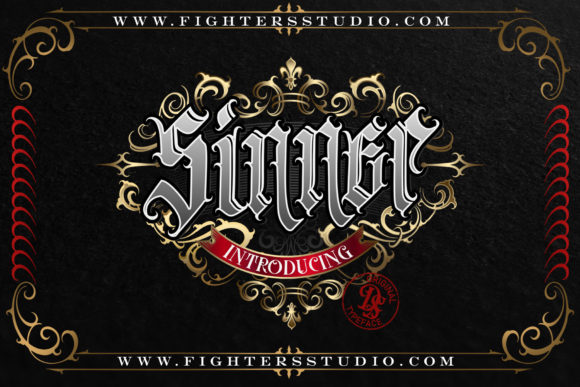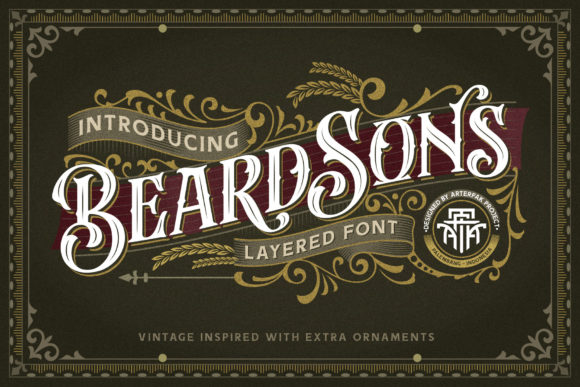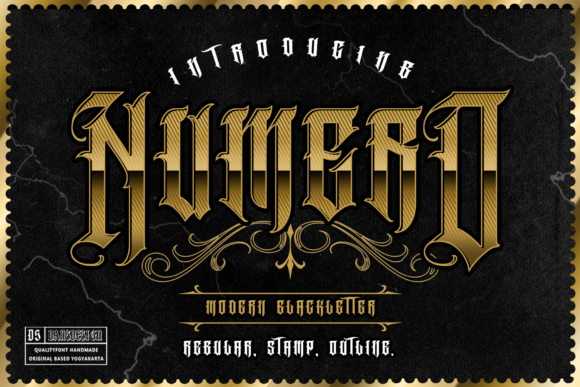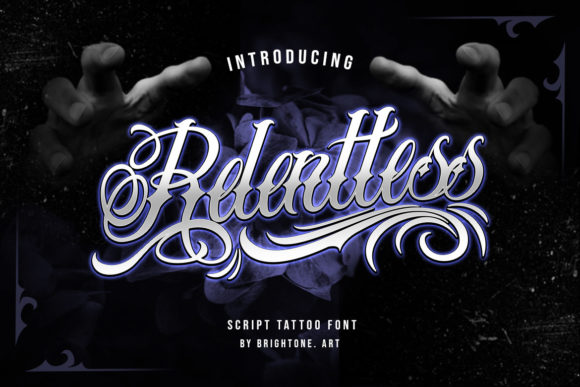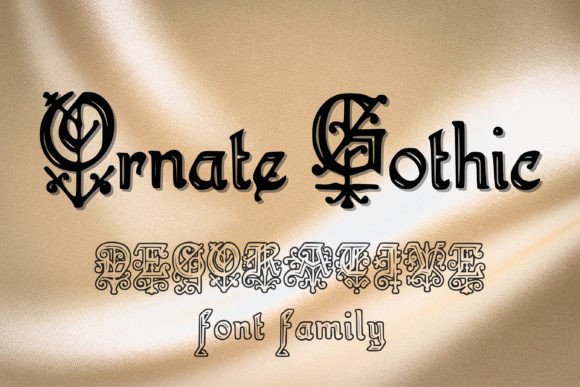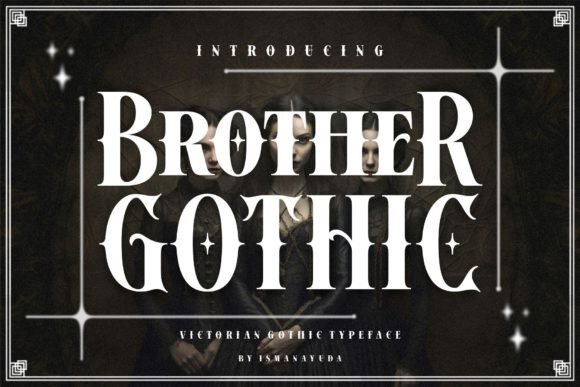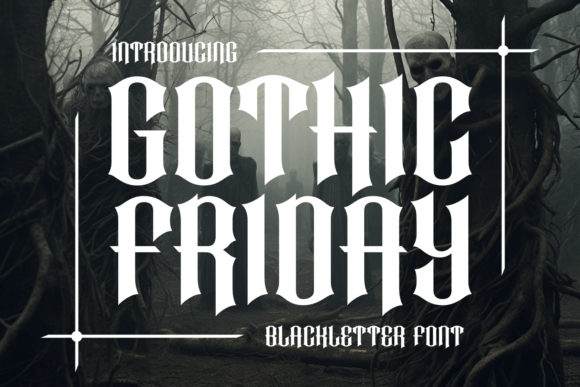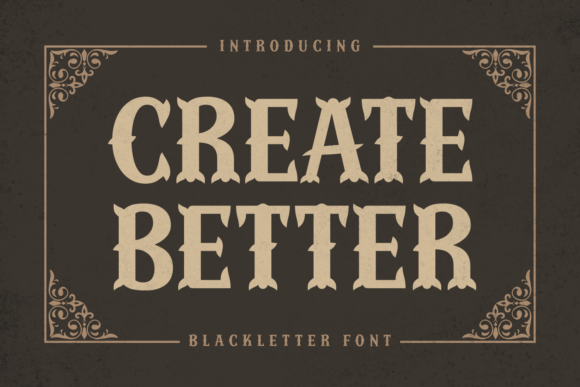
20 Best Gothic Fonts for Spooky and Mysterious Designs
Gothic fonts bring instant drama, mystery, history, and character to a design. From traditional blackletter and medieval lettering to bold vintage styles, these Gothic fonts are worth testing for posters, branding, apparel, invitations, album artwork, book covers, and Halloween projects.
Gothic typography is especially effective when a design needs atmosphere. Heavy strokes, dramatic capitals, sharp terminals, ornamental details, and historical blackletter influences can make even a short word feel distinctive.
01 · Vintage Blackletter
Beardsons
Beardsons is a distinctive blackletter typeface with a strong vintage character. Its bold construction makes it particularly useful when the lettering needs to become the main visual element of the design.
02 · Spooky Blackletter
Nightmare Gothic
Nightmare Gothic is a dramatic blackletter typeface designed around a dark and mysterious mood. Its Gothic structure makes it especially suitable for horror, Halloween, fantasy, and atmospheric designs.
03 · Victorian Gothic
Brother Gothic
Brother Gothic combines a Victorian-inspired structure with a tougher, biker-influenced Gothic feel. It is a versatile display style for traditional and contemporary graphic work.
04 · Detailed Gothic
Numero
Numero is an assertive Gothic-style blackletter with detailed letterforms. Its visual weight makes it suitable for attention-grabbing headlines and statement typography.
05 · Dark Display
Sinner
Sinner leans into the darker side of Gothic display typography. Its dramatic appearance makes it a natural fit for rebellious, mysterious, and horror-inspired projects.
06 · Bold Gothic
Relentless
Relentless is designed for projects where typography needs to make an immediate impression. Its heavy Gothic personality works well in compact headlines and statement lettering.
07 · Classic Blackletter
Midnight Blackletter
Midnight Blackletter delivers the atmosphere of traditional Gothic lettering while remaining useful for modern display work.
08 · Ornamental Gothic
Ornate Gothic
Ornate Gothic is aimed at designers who want more decorative options from their blackletter typography. The family includes Regular, Stencil, and Outline treatments.
09 · Decorative Display
Roslenk
Roslenk brings a decorative blackletter character to display typography. It works particularly well when the lettering needs to feel like a finished graphic element.
10 · Free Gothic Font
Gothic Friday
Gothic Friday is an accessible option for designers who want a Gothic aesthetic without adding another paid font to the project budget.
11 · Textured Gothic
Black Jaguar Font
This typeface has a tactile character, with letterforms developed through a physical process before being digitized. That gives the typography a handcrafted quality.
12 · Fantasy Gothic
Gothic Fiction
Gothic Fiction is suited to designs that need a strong storytelling quality, including fantasy titles, atmospheric covers, mysterious posters, and dramatic branding.
13 · Modern Gothic
Nostra
Nostra is useful when you want Gothic influence without making the entire design feel historically themed. Its display-oriented personality works well in contemporary compositions.
14 · Western Gothic
Create Better
Create Better combines Gothic influence with a Western-inspired visual direction. This makes it an unusual option for designs between old-world typography and frontier aesthetics.
15 · Classic Goth
Black Letter Goth
Black Letter Goth takes the traditional blackletter direction and places it inside a dark contemporary aesthetic. It is a straightforward choice when the project needs unmistakably Gothic lettering.
16 · Decorative Gothic
Moreza
Moreza adds another decorative option to the Gothic shortlist. It works best when the type itself is expected to carry much of the visual identity of the design.
17 · Medieval
Medieval Blackletter
Medieval Blackletter is a natural fit for projects that intentionally lean into historical, medieval, fantasy, or old-world visual language.
18 · Outline Gothic
Avestrava Outermost
Avestrava Outermost takes a more experimental route with an outline-oriented blackletter treatment. It is interesting when solid blackletter feels too heavy for the composition.
19 · Minimal Gothic
Minimal Blackletter
Minimal Blackletter is worth testing when you want the recognizable character of blackletter without overwhelming a relatively clean composition.
20 · Traditional Gothic
Blackletter
Blackletter rounds out the list with a straightforward traditional Gothic direction. It is a useful starting point for designers who want to experiment with the blackletter genre.
How to Choose the Right Gothic Font
Not every Gothic font creates the same mood. A traditional blackletter can feel historical and ceremonial, while a rough display font can feel rebellious, contemporary, or horror-inspired. Before choosing a typeface, decide what the typography needs to communicate.
Which Gothic font should I test first?
If you want a broad starting point, begin with Beardsons, Nightmare Gothic, and Brother Gothic. They represent three different Gothic directions.